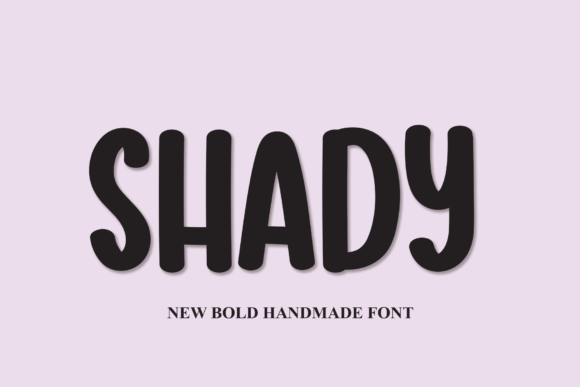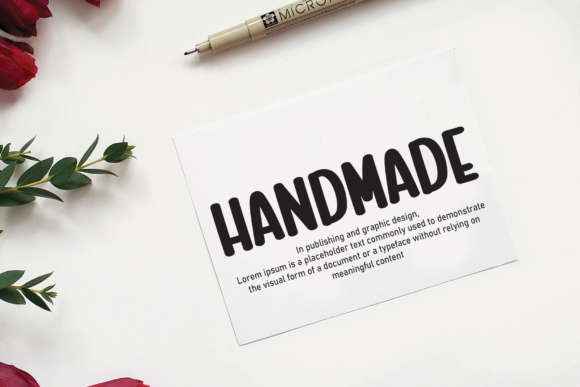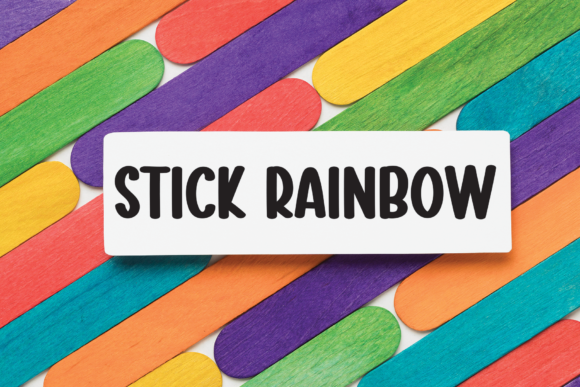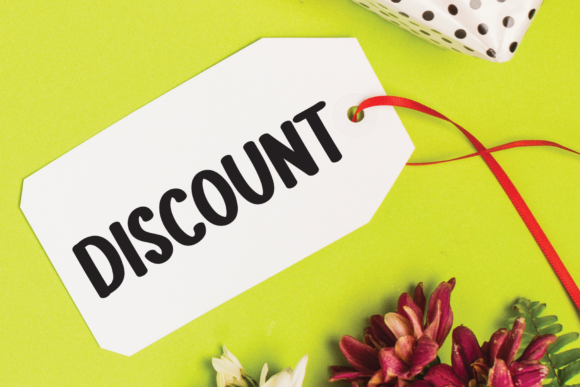
Shady Font: A Bold & Playful Handmade Display Font
About the Shady Font
From logos to headlines, the Shady Font is the perfect choice for making a lasting impression. Shady is a bold, and thick font that will help you create fun and playful designs and will look good on a variety of branding and packaging projects.
This chubby font features the perfect combination of fun and creativity to instantly grab anyone’s attention.